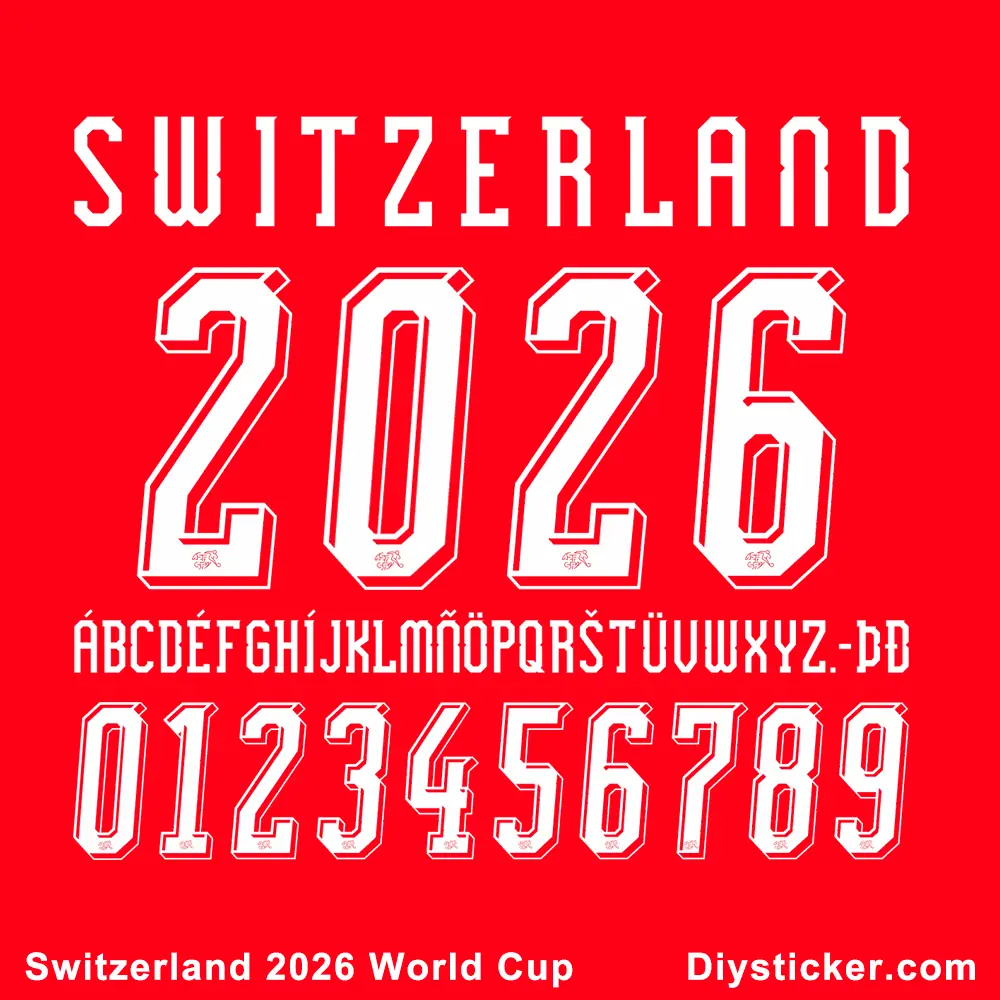
Be the first to design with the exclusive, officially-styled Switzerland 2026 World Cup Font. As the premier source for this font, we offer you the authentic typeface inspired by the Swiss Football Association’s (SFV/ASF) branding for the upcoming FIFA tournament.